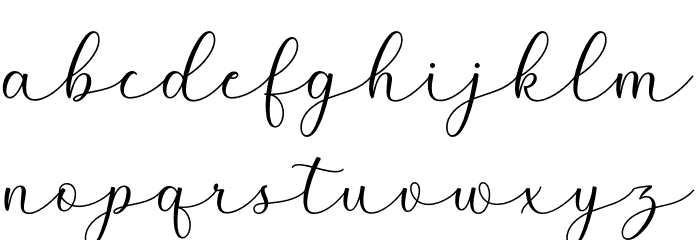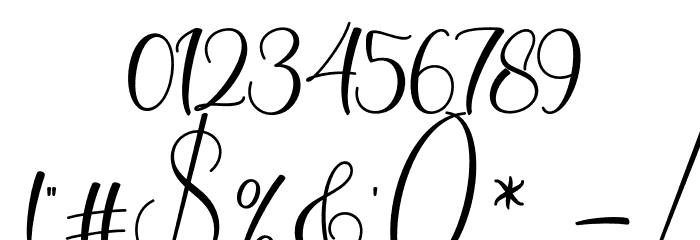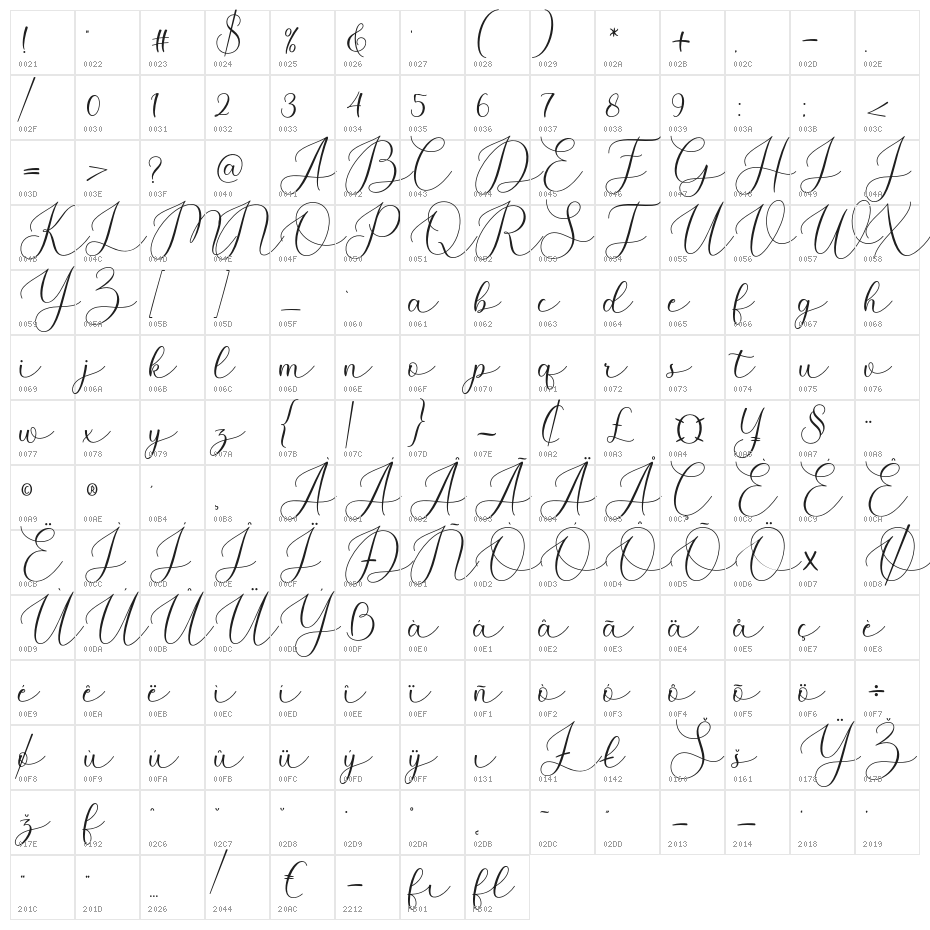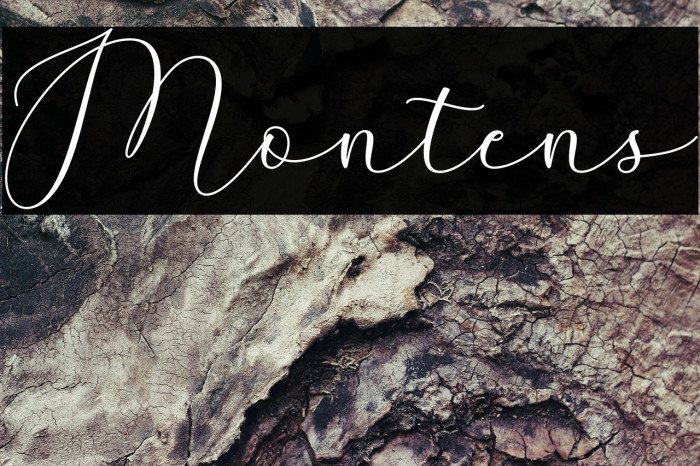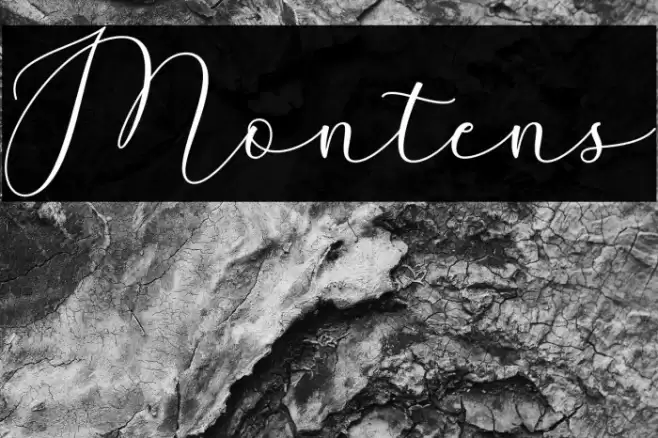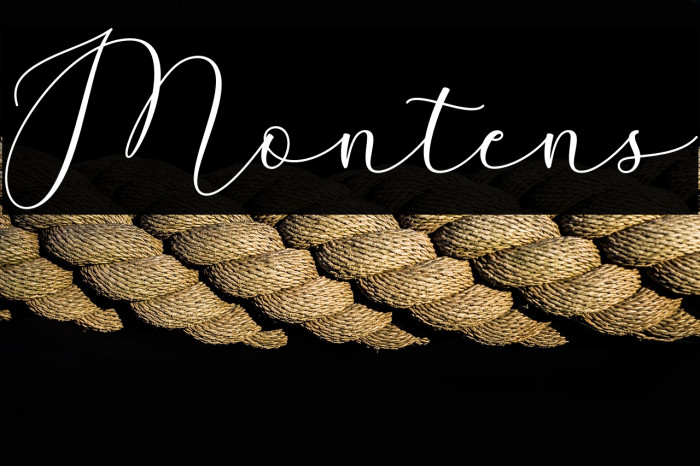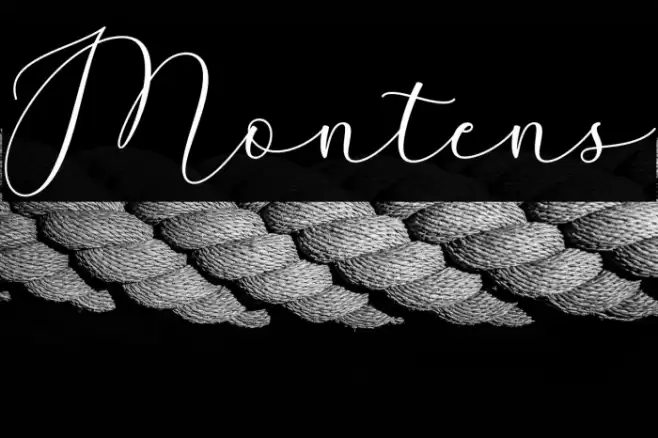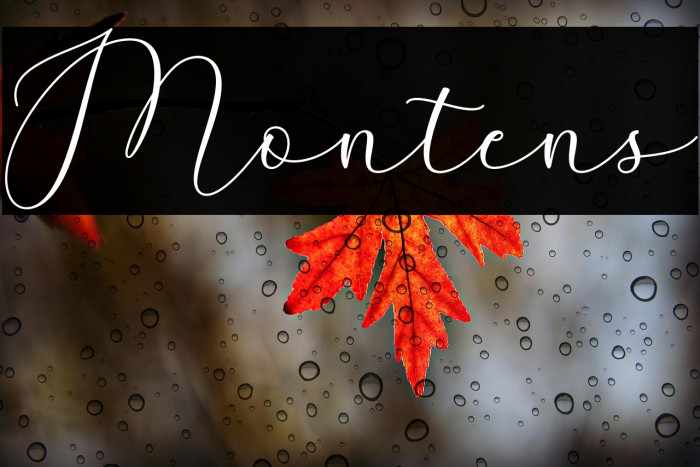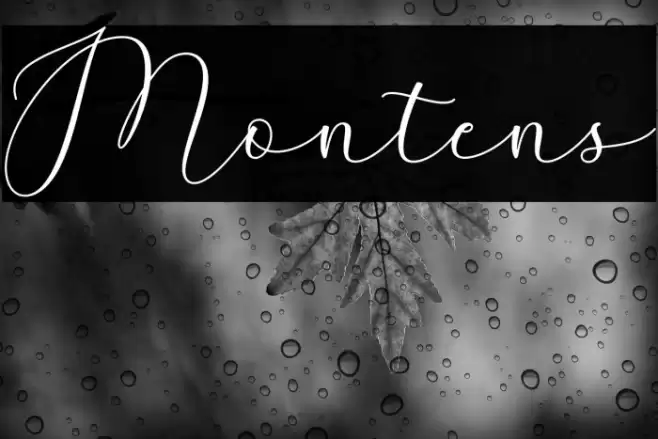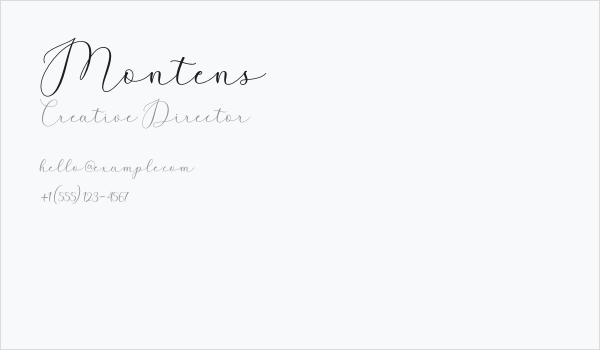
Montens Font
This elegant script font features a flowing, cursive style with smooth, continuous strokes that create a sense of fluidity and grace. The uppercase letters are characterized by their tall, slender forms and delicate loops, while the lowercase letters maintain a consistent, harmonious flow. The numerals are stylishly curved, complementing the overall aesthetic. Special characters are thoughtfully designed to match the script's elegance. This font exudes a sense of sophistication and charm, making it ideal for projects that require a touch of refinement.
A graceful script font with flowing, cursive strokes and elegant design.
- Font: Montens
- No. of Characters:: 194
- Proposed Projects: Ideal for wedding invitations, elegant branding, personal stationery, and decorative quotes.
- Category: Script
- Overall Style: Elegant
- Use Case: Logos, Invitations, Decorative text